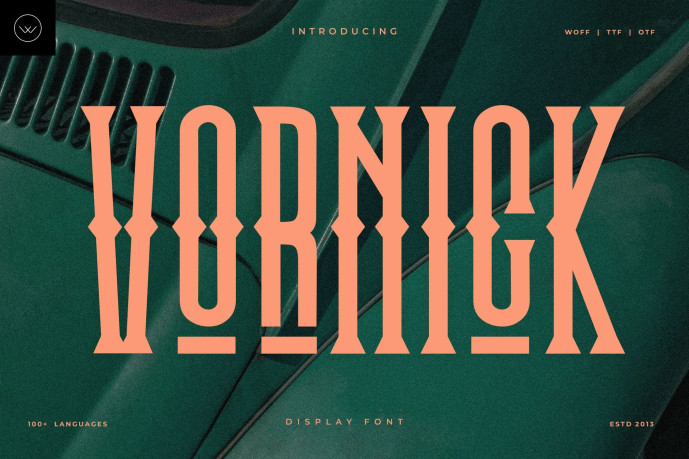
Vornick – Vintage Display Font
Vornick – Vintage Display Font that captures the magnificent allure of vintage signage, blending it perfectly with clean, contemporary design. With its towering vertical presence, powerful straight lines, and distinctive ornamental serifs, Vornick creates an immediate sense of nostalgia and high impact.
Inspired by the decorative hand-lettering of classic Americana, fairground posters, and classic rock-and-roll album covers, Vornick is designed for projects that demand to be seen. It’s the perfect headline font for logos, packaging, posters, editorial titles, and branding that needs a unique blend of heritage and modern flair.
Vornick’s carefully balanced proportions and unforgettable letterforms make it an exceptional choice for beverage branding, musical events, film titles, or any design seeking bold elegance and a touch of the extraordinary.